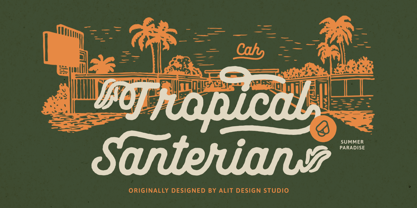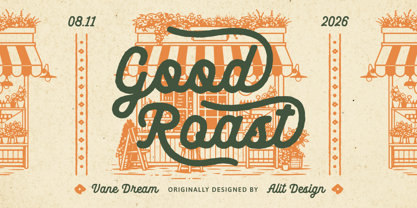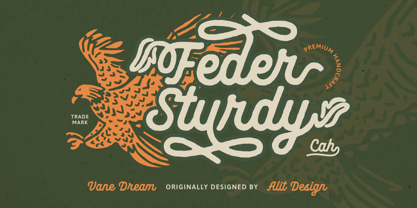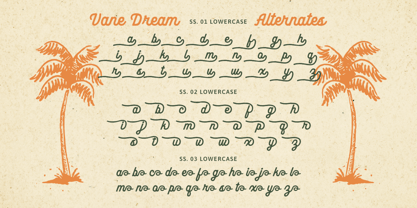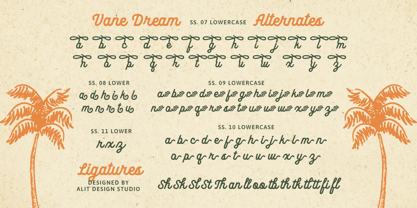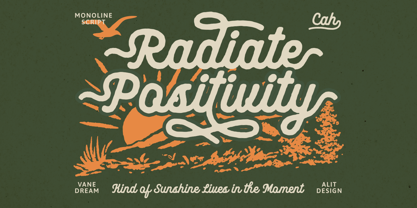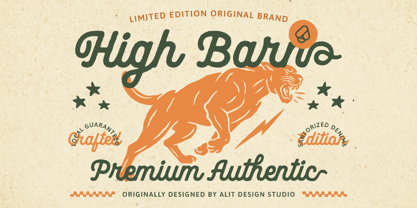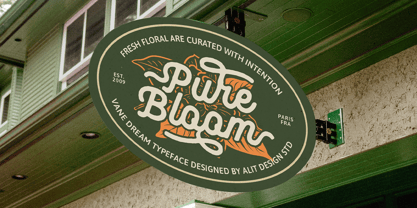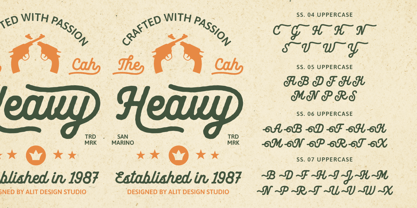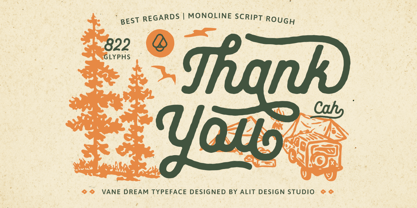
Vane Dream
Die Schriftfamilie Vane Dream wurde von Alit Suarnegara entworfen und von Alit Design veröffentlicht. Vane Dream enthält 1 Stile. Mehr über diese Familie
Vane Dream Typeface – Vintage Rough Monoline Script
Introducing Vane Dream Typeface, a premium rough monoline script crafted for designers who crave that authentic, handcrafted vintage aesthetic. Proudly designed by Alit Design Studio, Vane Dream perfectly captures the spirit of the great outdoors, classic motorides, and artisanal craftsmanship.
What sets Vane Dream apart is its incredible versatility and massive character set. Packed with an astounding 822 glyphs, this typeface is a typography playground. It features beautifully textured, rough-edged strokes that give your designs an instant retro letterpress or hand-painted sign feel. Whether you are designing a rugged biker t-shirt, a cozy coffee shop logo, a handcrafted botanical label, or an adventurous outdoor poster, Vane Dream adapts to your creative vision effortlessly.
To make your typography truly unique, Vane Dream comes loaded with extensive OpenType features, including up to 11 Stylistic Sets for lowercase letters and 7 Stylistic Sets for uppercase letters. Mix and match the dynamic swashes, sweeping tails, and custom ligatures to create stunning, custom-looking typography that flows naturally.
Perfectly suited for:
• Vintage logo and branding design
• Apparel, t-shirt, and merchandise design (from moto-culture to surf wear)
• Product packaging and labels (coffee roasters, artisan goods, apothecary)
• Storefront signage and hand-lettered quotes
• Outdoor, camping, and adventure-themed projects
Key Features:
• Massive Glyph Count: 822 Glyphs ensuring endless design possibilities.
• Authentic Texture: Rough, monoline edges for a genuine vintage feel.
• Extensive Alternates: SS.01 to SS.07 for Uppercase & SS.01 to SS.11 for Lowercase.
• Custom Ligatures: Specially crafted double letters for a seamless script flow.
• Multilingual Support: Ready for global projects.
• Includes standard uppercase, lowercase, numerals, punctuation, and symbols.
Bring your vintage visions to life with the sturdy, stylish, and endlessly adaptable Vane Dream Typeface!